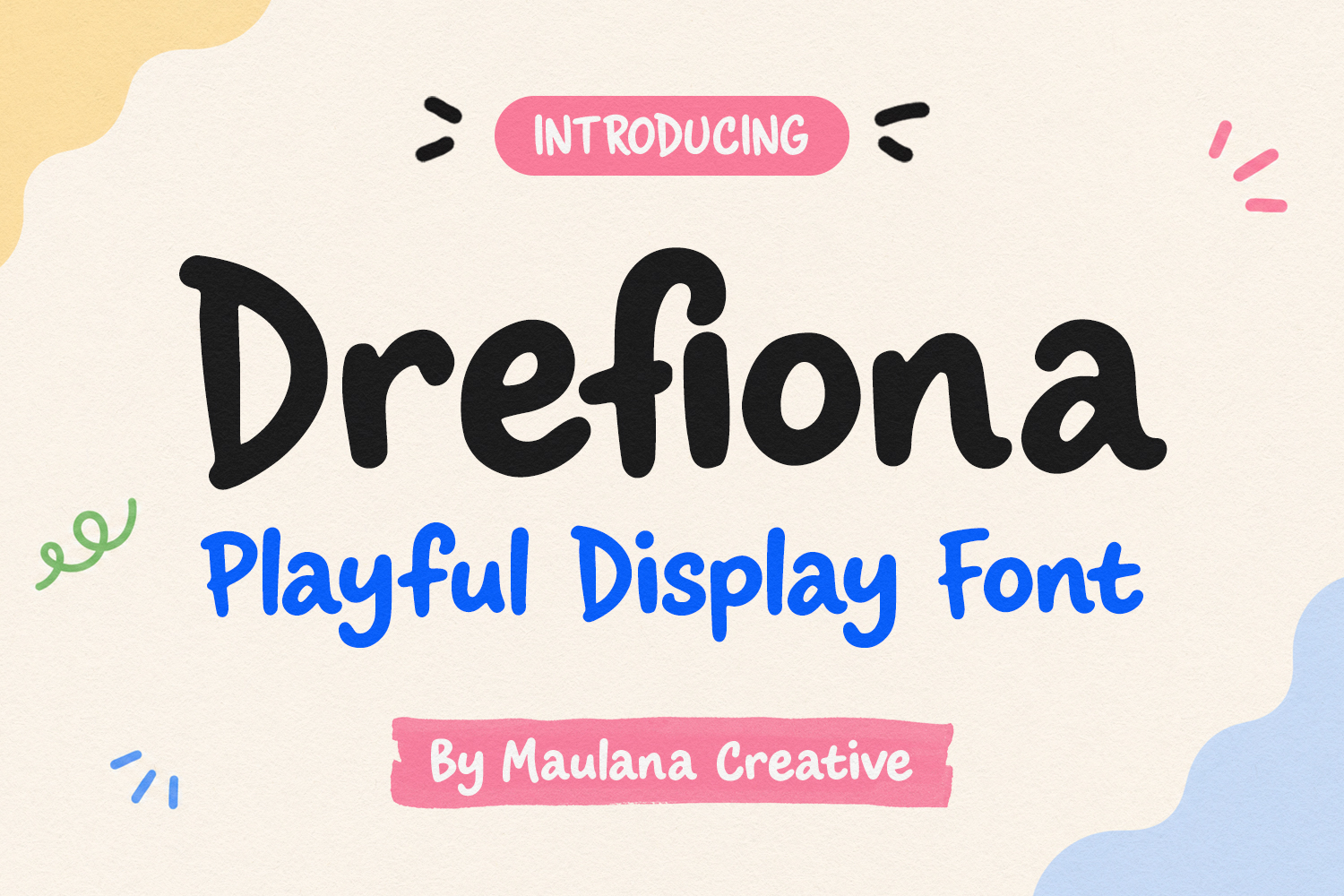
Drefiona Playful Rounded Display Font
Drefiona Playful Rounded Display Font brings a friendly, cheerful aesthetic to creative work with smooth curves and soft letterforms. Designed with smooth rounded edges, custom ligatures, and complete multilingual support, this typeface crafts vibrant headers, greeting cards, and product packaging that instantly grab attention with warmth.
This versatile typeface includes uppercase, lowercase, numbers, and comprehensive punctuation for flexible design applications. Ideal for children's books, food branding, tote bags, and quote posters, it adds a hand-drawn, joyful touch to digital artwork and modern branding visual elements.